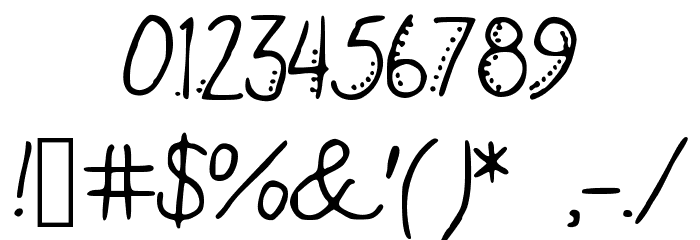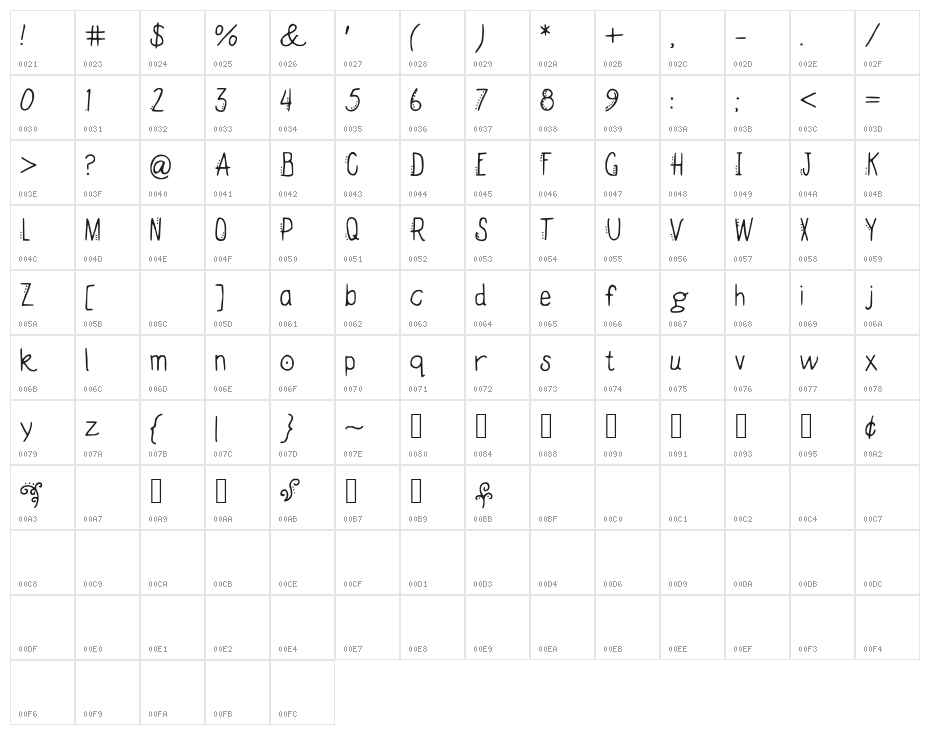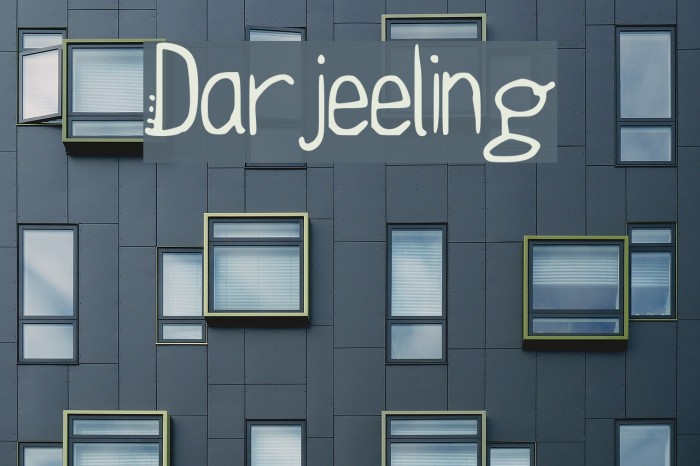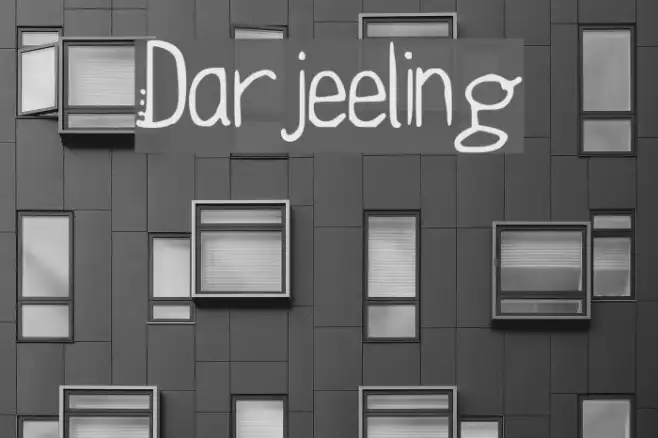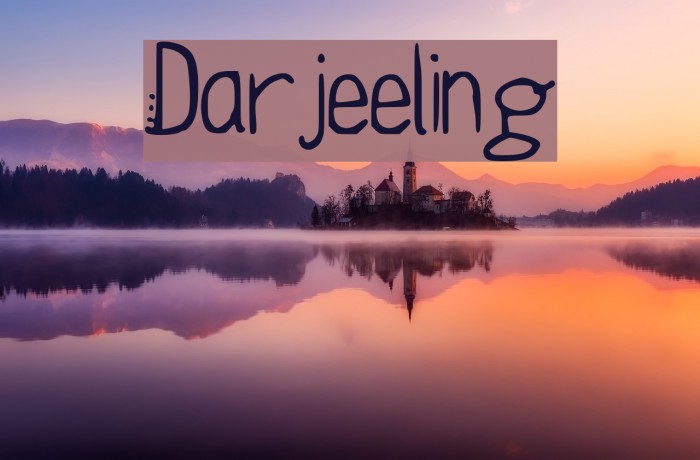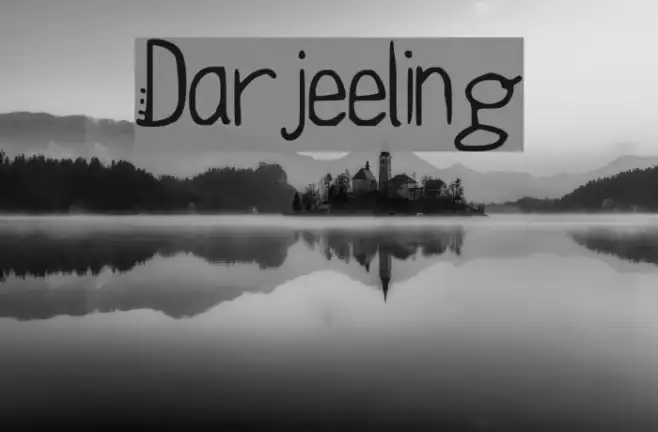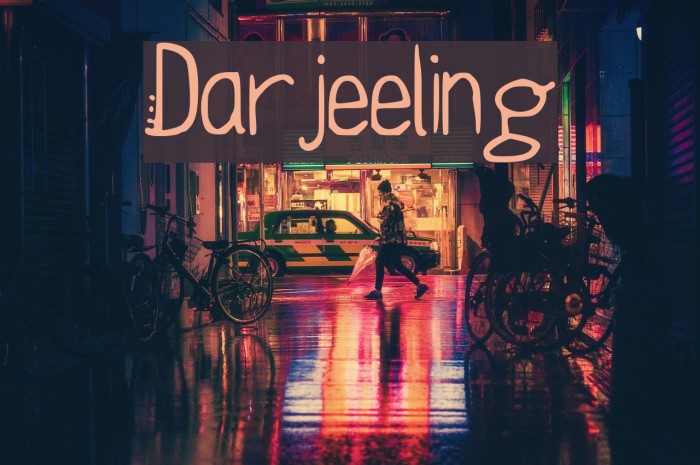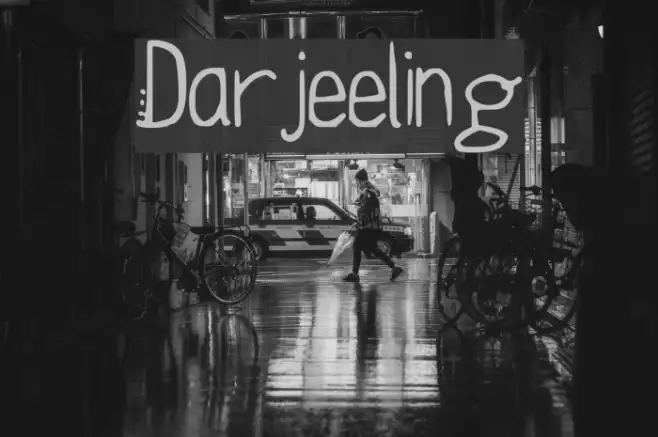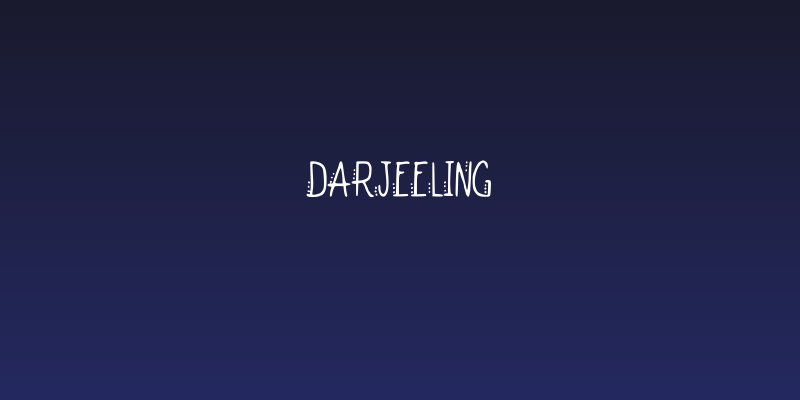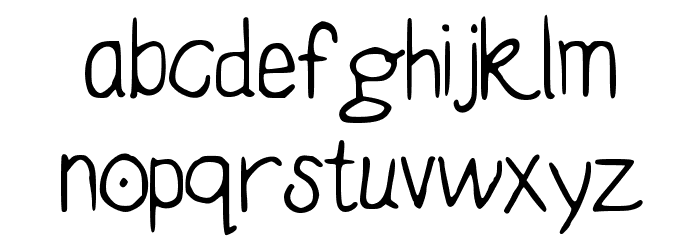
Darjeeling Font
Darjeeling Description
This playful and whimsical font features a hand-drawn style with unique decorative elements. Each letter is adorned with small dots, adding a touch of charm and creativity. The characters are slightly irregular, enhancing the casual and friendly appearance. The font maintains a consistent stroke width, providing a balanced and cohesive look. Its informal style makes it perfect for projects that require a fun and approachable feel, such as children's books, greeting cards, or playful branding. The numbers and special characters are designed to match the quirky aesthetic, ensuring a harmonious overall presentation.
| Proposed Projects | Ideal for children's books, greeting cards, playful branding, and creative invitations. |